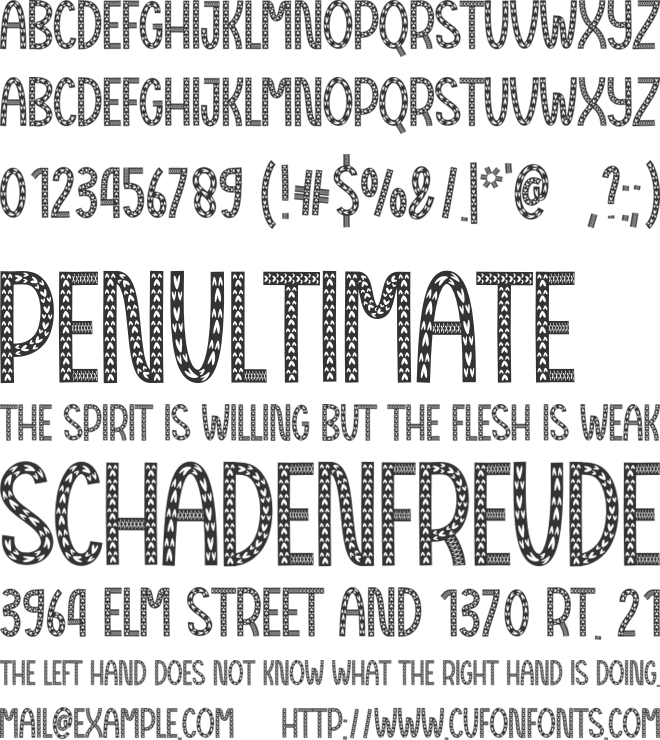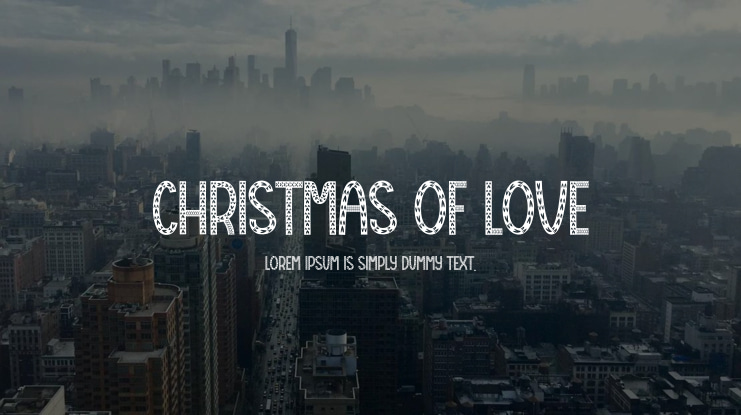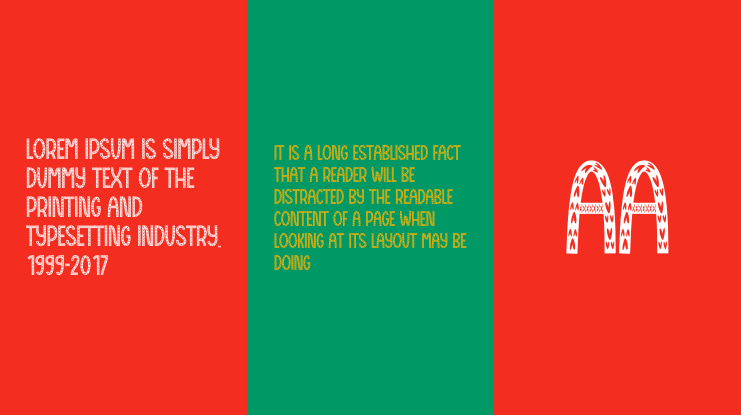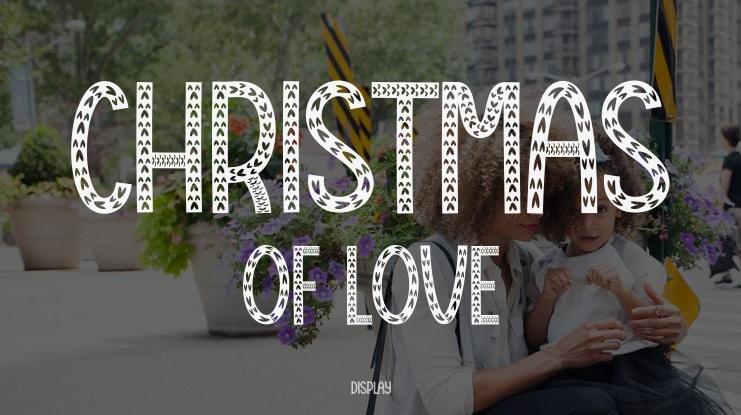
Christmas Of Love Font
Our latest collection of stylish letters is perfect for various applications including wall displays, wedding invitations, social media post logos, advertisements, product packaging, designs, labels, photography, watermarks, invitations, stationery, and any project that requires stylish handwriting.
Christmas Of Love font preview